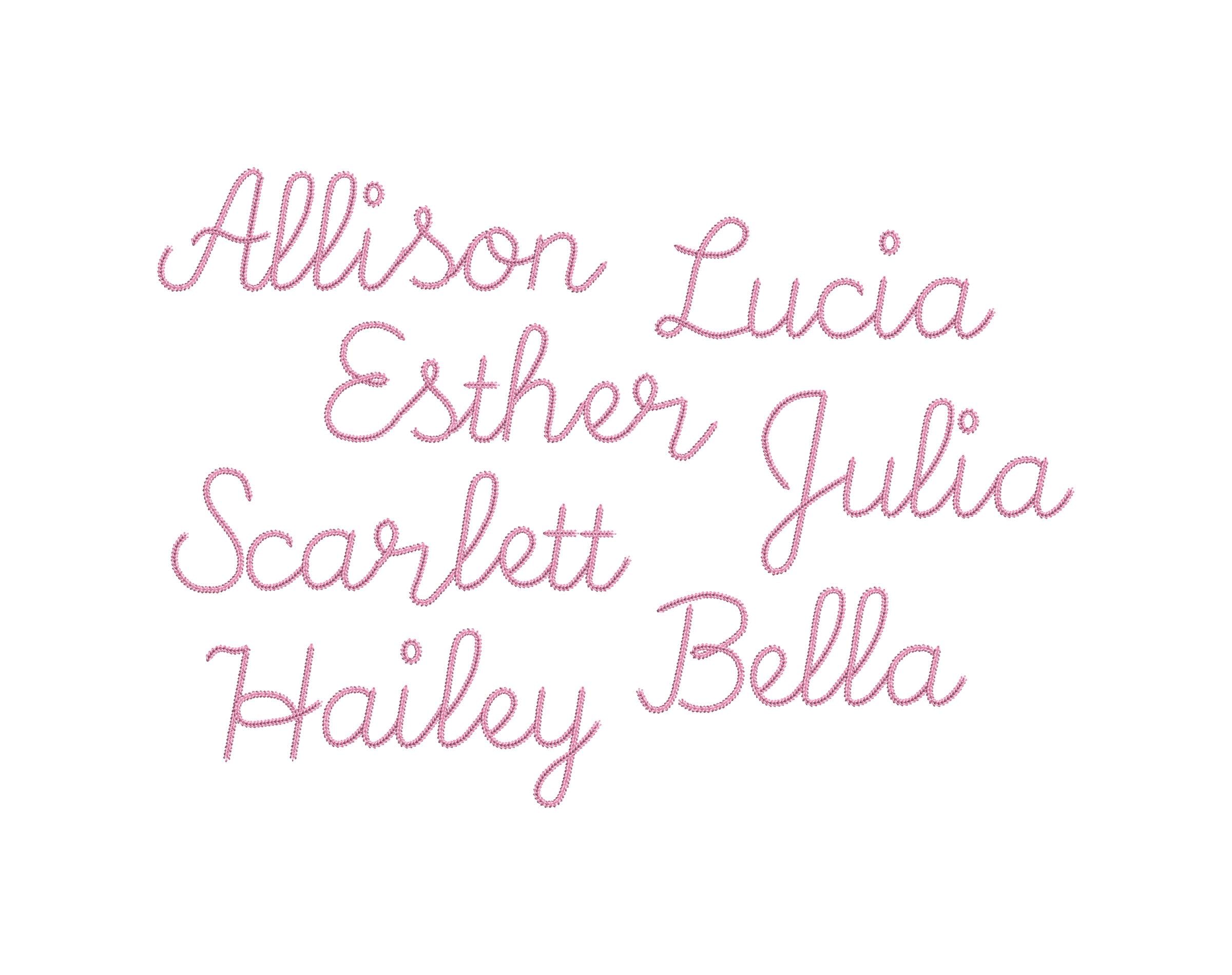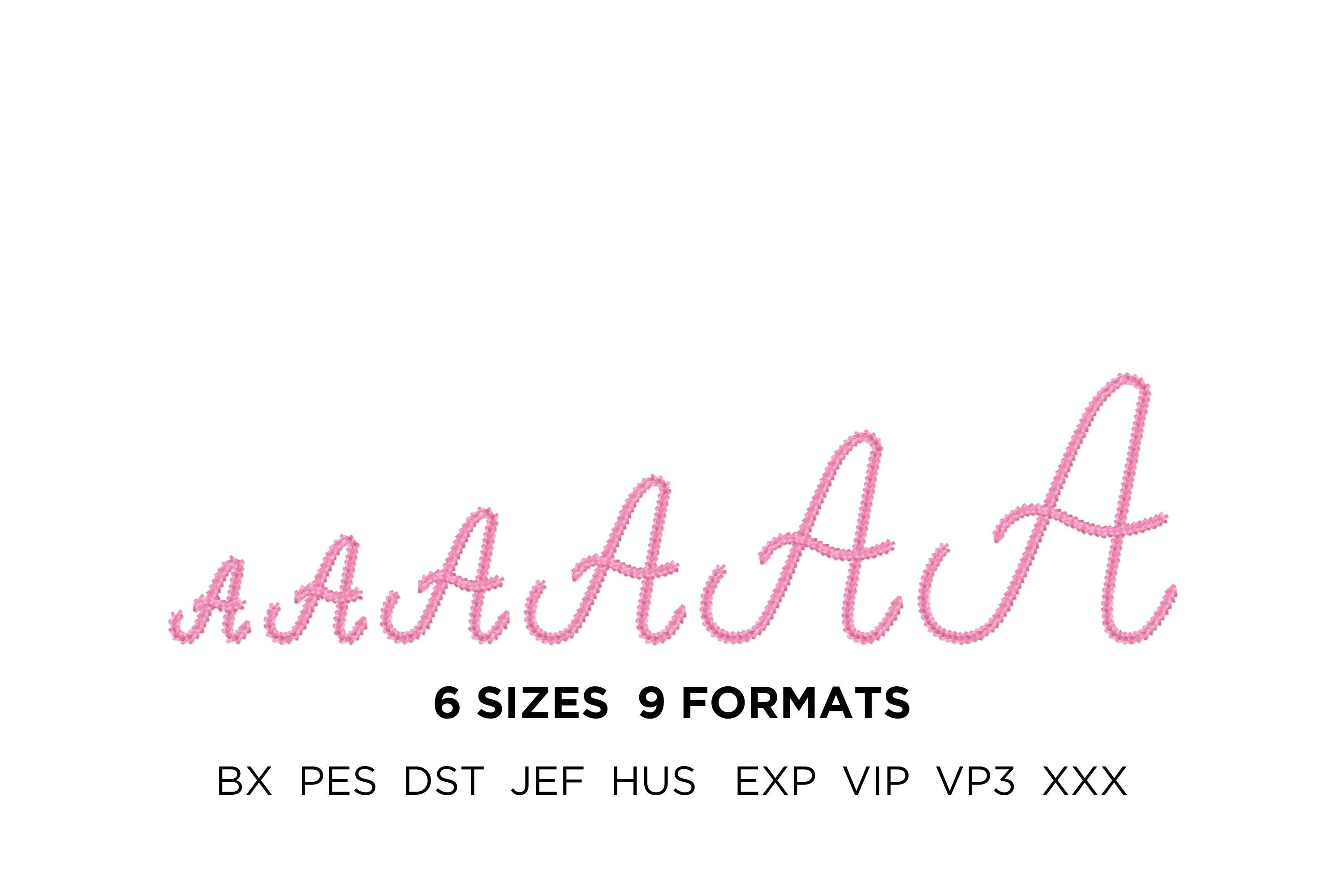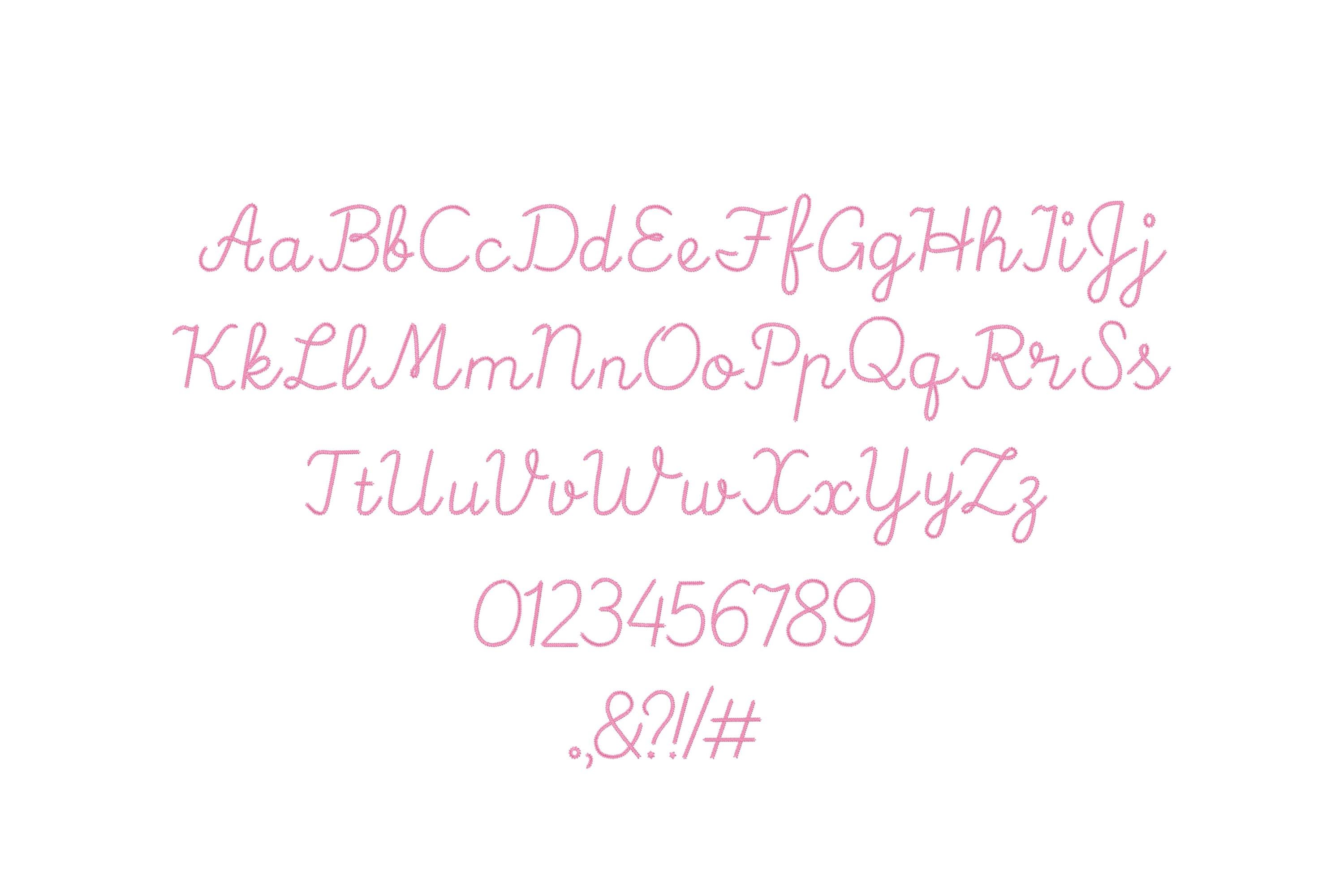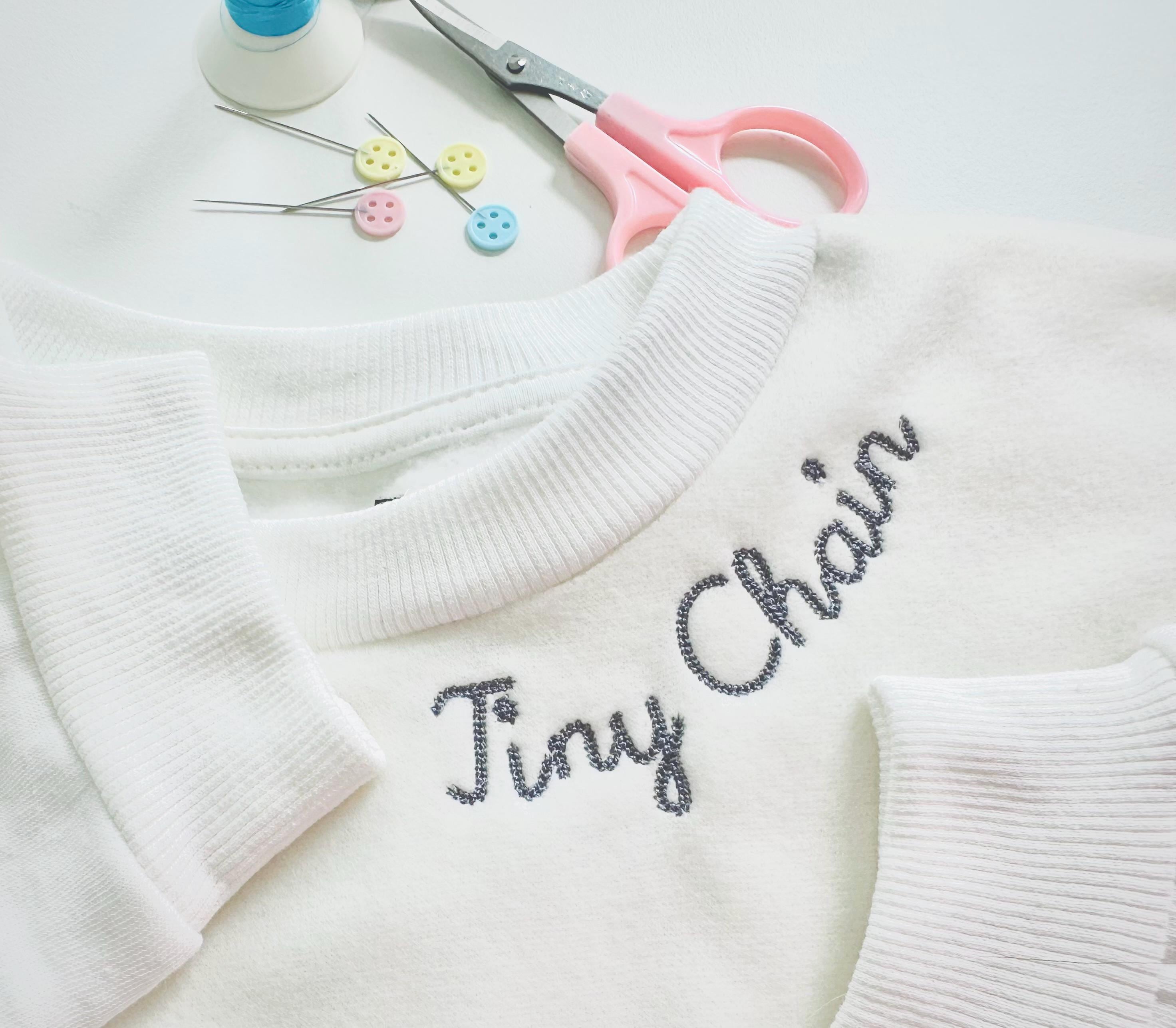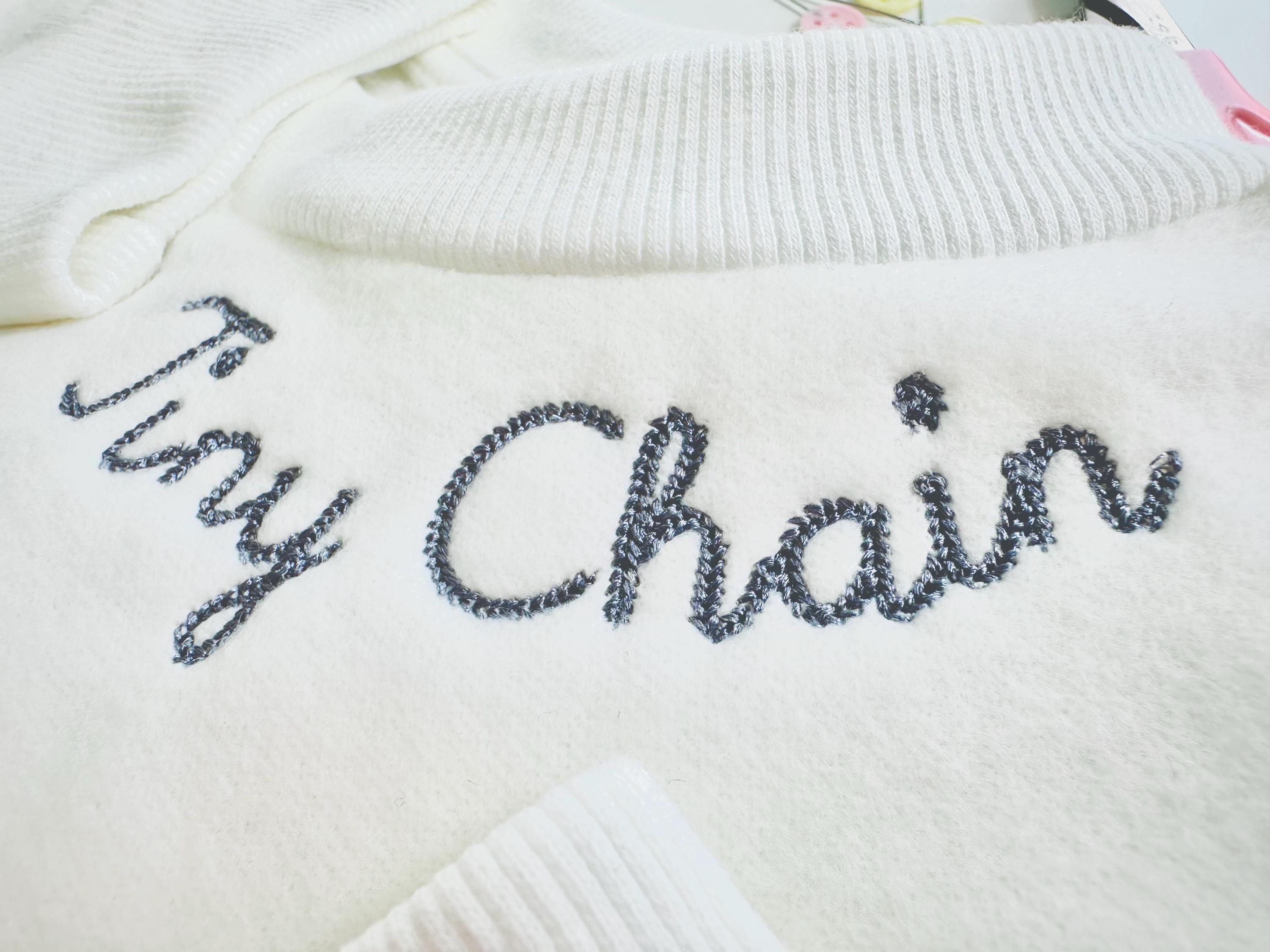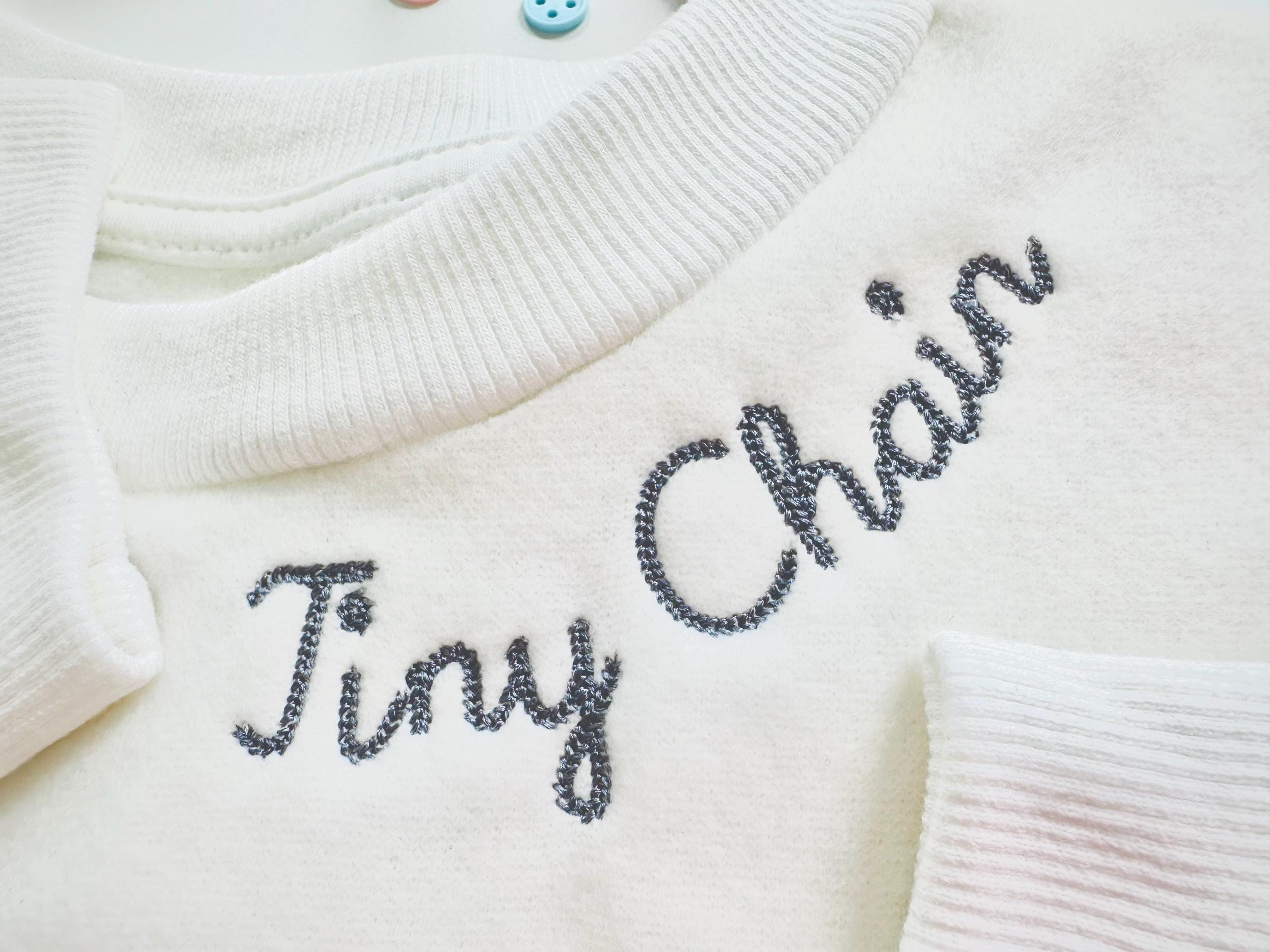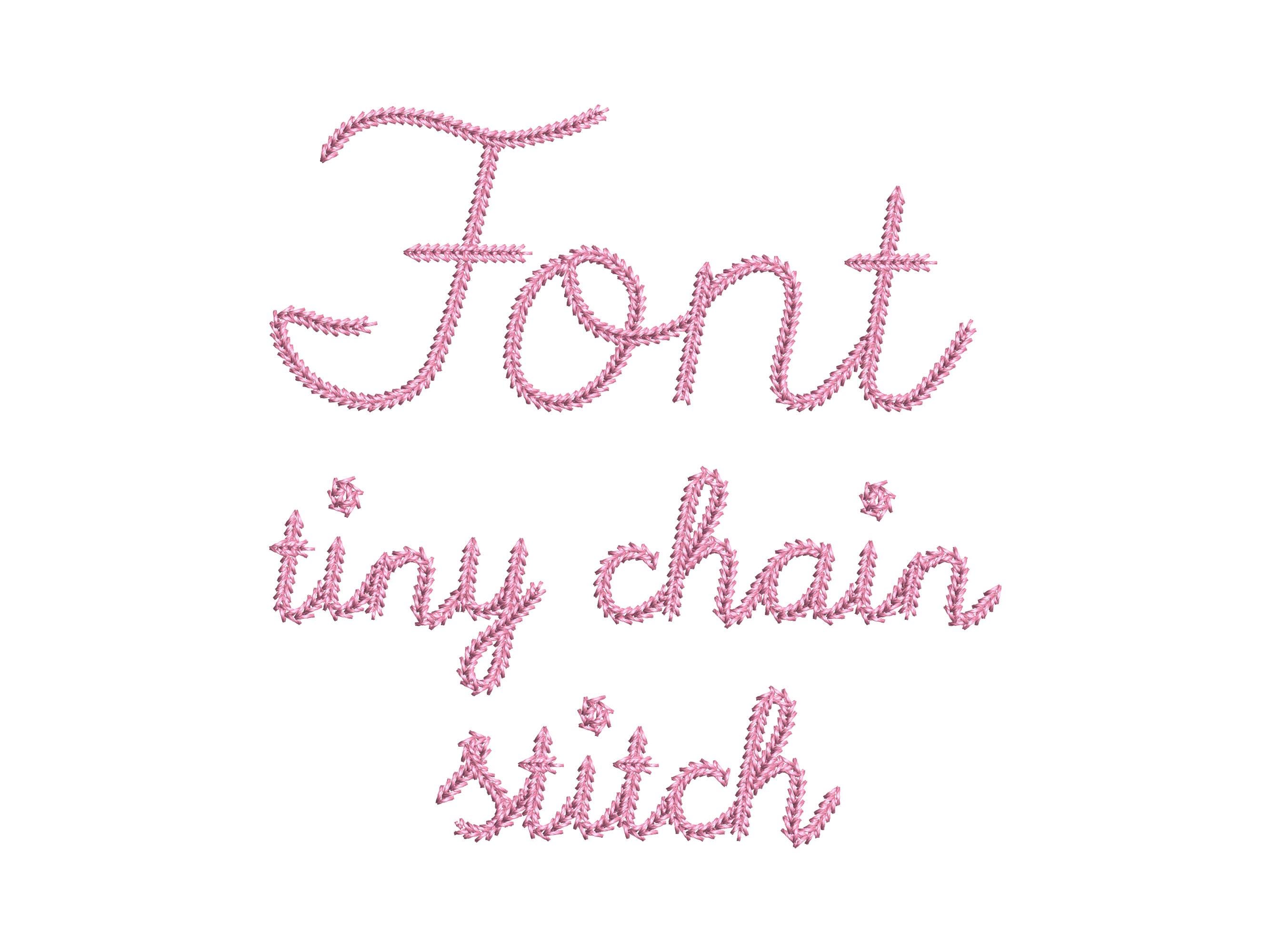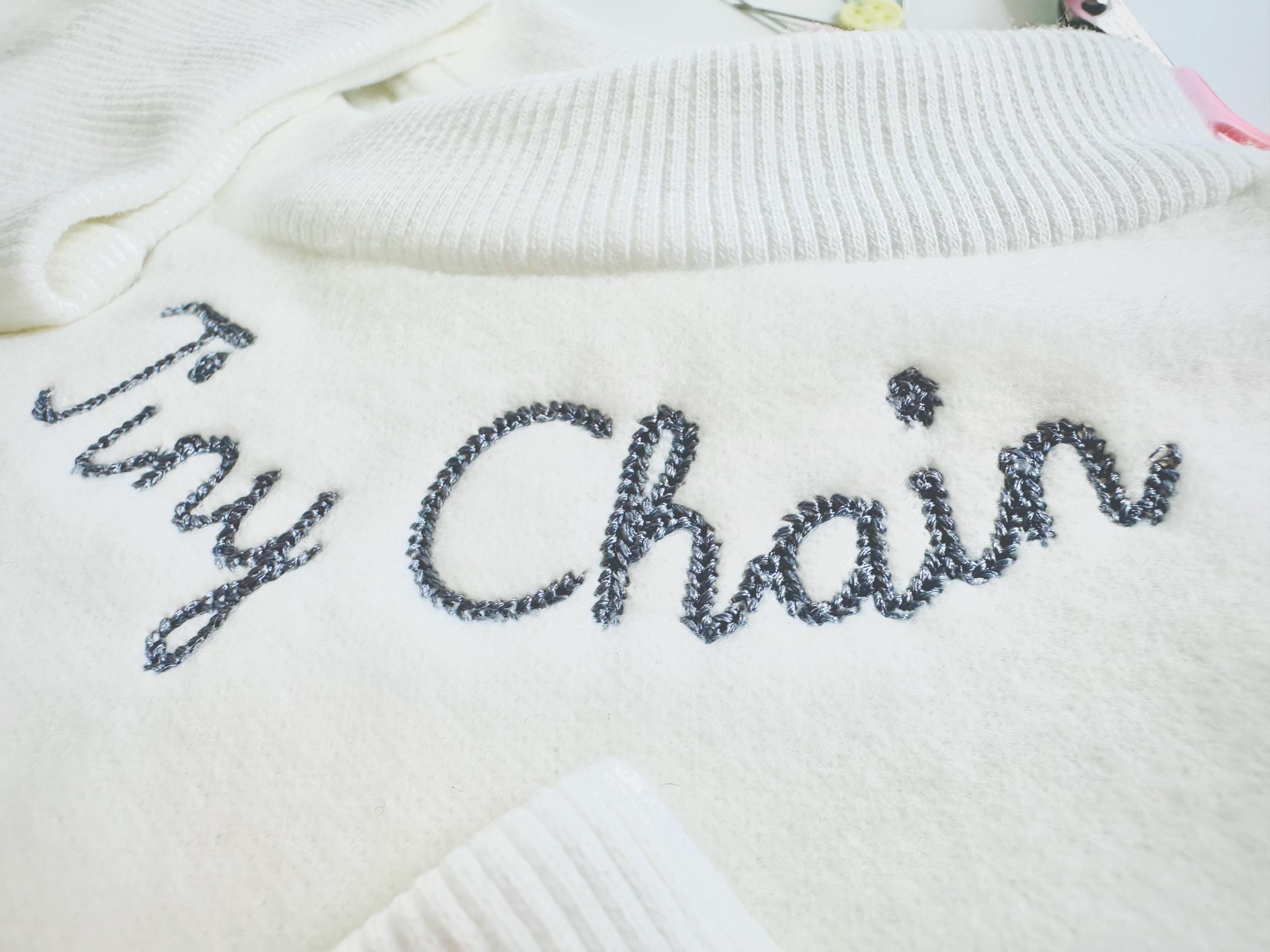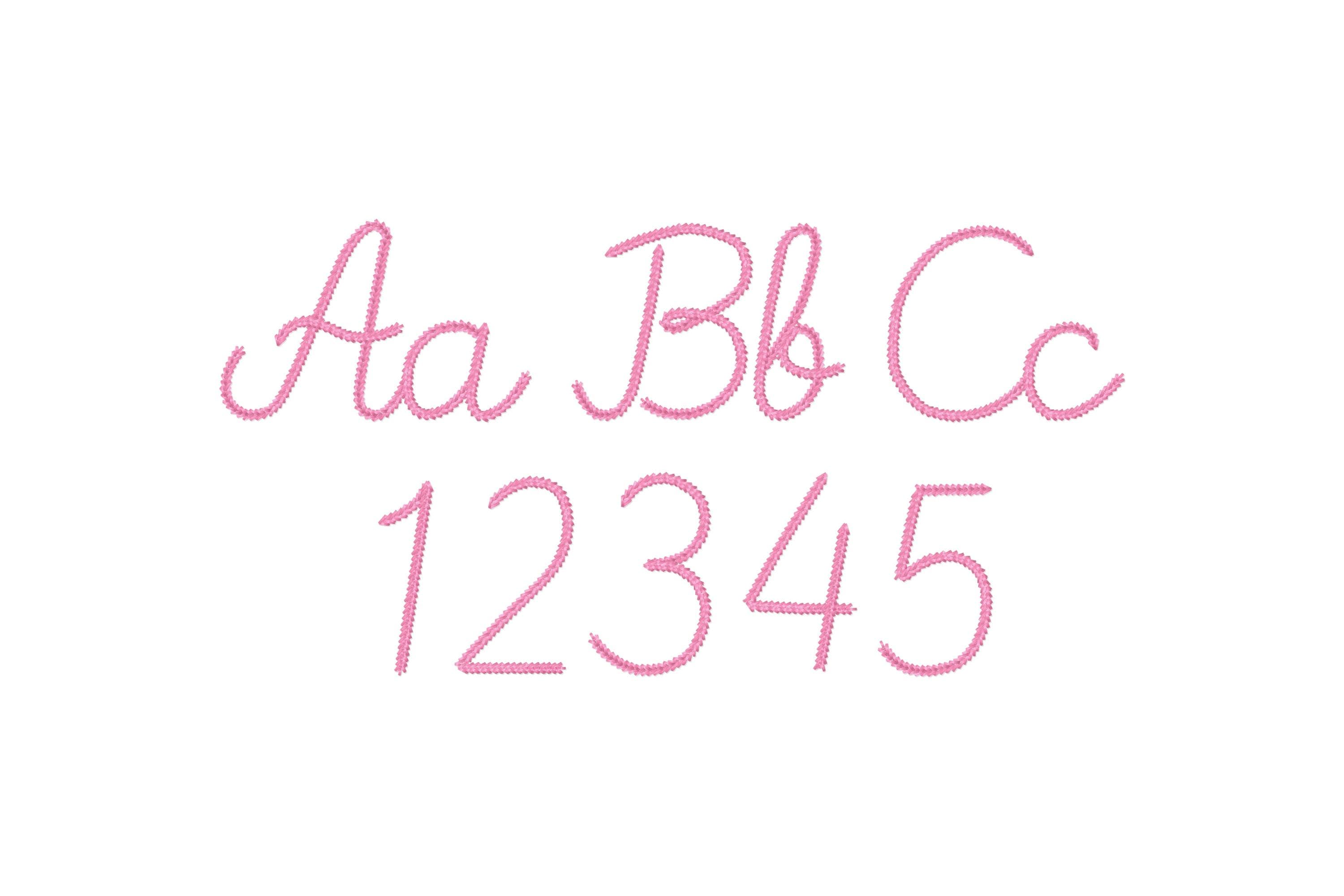
Tiny Chain FONT Play machine embroidery designs mini sizes 0.6 up to 2 inch Neckline Font kids baby handwritten script alphabet letters BX
Entire alphabet uppercase and lowercase letters Aa-Zz, numbers 0-9, and punctuation.